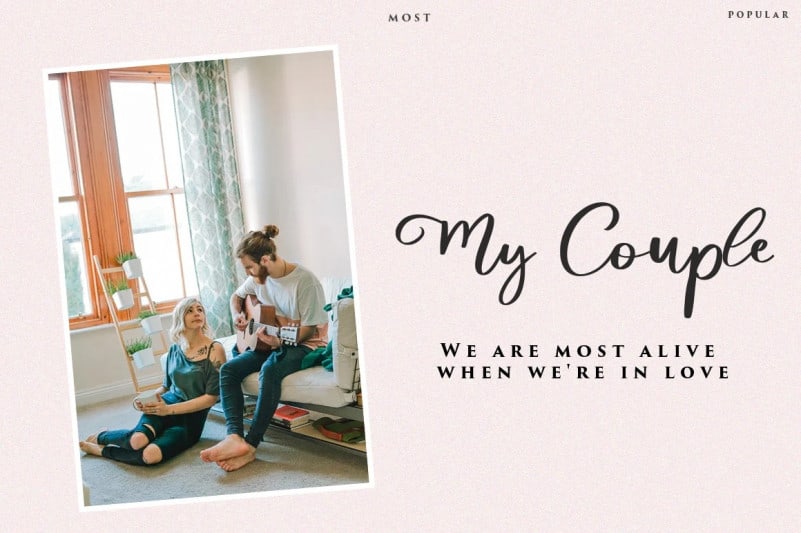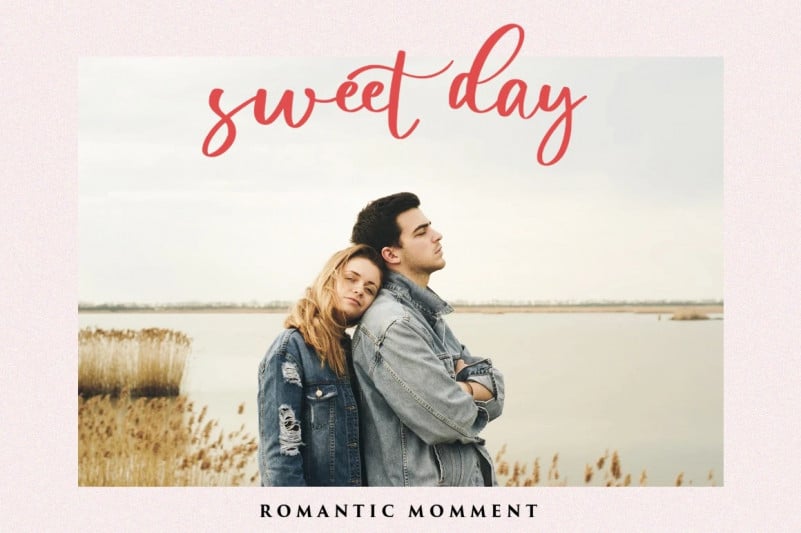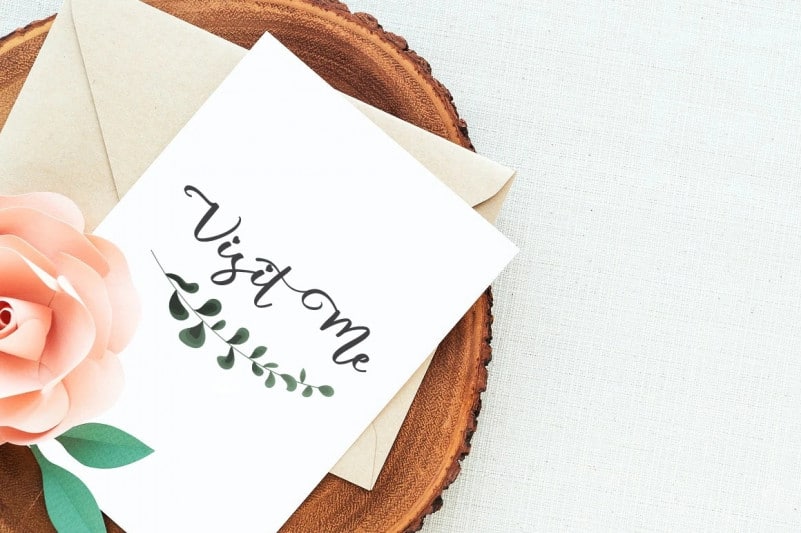
Abiland Calligraphy Font
Abiland Calligraphy Font is a delicate, elegant and flowing handwritten typeface. It has beautiful and well balanced characters and as a result, it matches a wide pool of designs. It’s designed and shared by Vultype Co. inspired by a sweet love contemporary handwriting fonts with ligatures and alternative styles ready to add unique look and bloom on your design
It easily cooperating together For Magazine, Movies, or Book Titles. For Photography, Wedding Invitation, Restaurant Menu or T-shirt Design. For Flyers, Banner Ads, web and printing. From Food and Fashion to a Cosmetics product